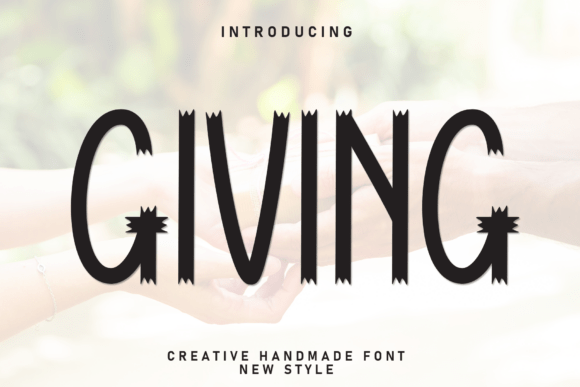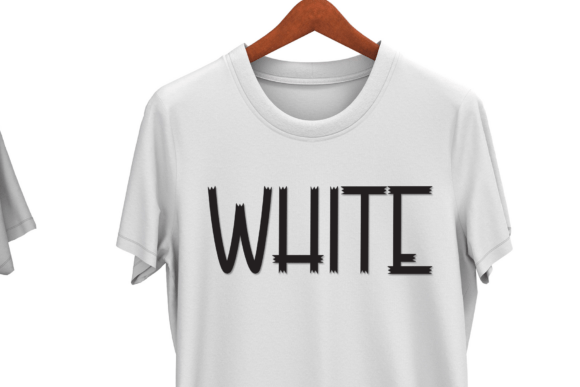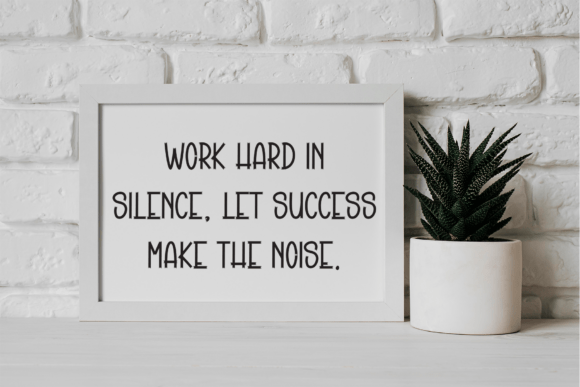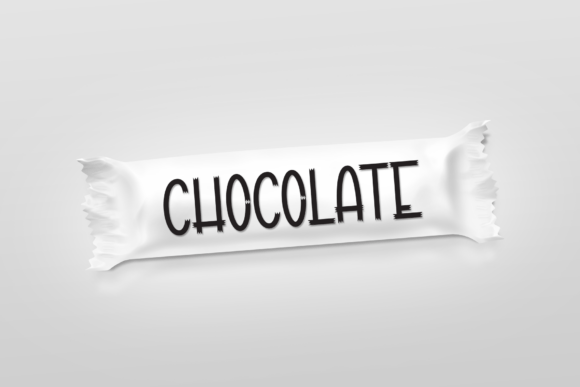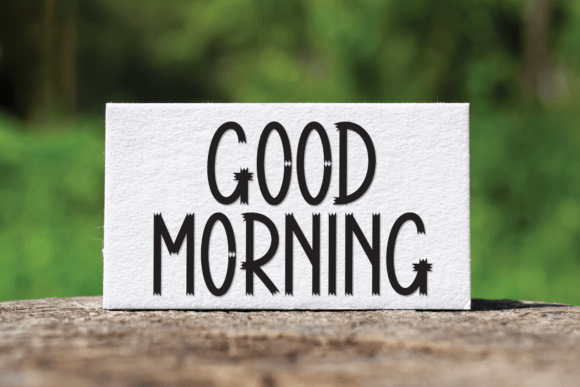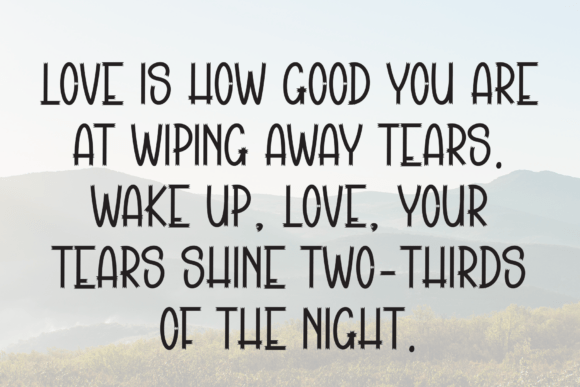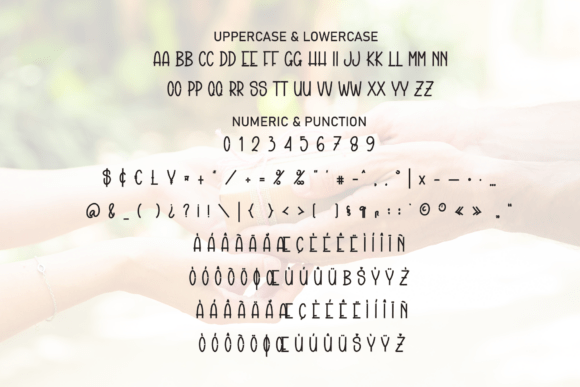
The Magic of Handwoven Typography: Unveiling Giving Font
Have you ever sat down at your desk, staring blankly at a blank canvas, searching for the perfect font to bring your design to life? The struggle is real, but what if I told you there’s a font that’s been carefully crafted to captivate and inspire? Enter the enchanting world of Giving Font, a meticulously handwoven display font that radiates warmth and charm.
Created to add a touch of elegance and romance to any design, Giving Font is a valuable asset for designers looking to elevate their work. Whether it’s a wedding invitation, a greeting card, or a creative project, this font is sure to leave a lasting impression. Its unique charm and individuality make it a standout in the world of typography, and its premium quality ensures that it will remain a timeless favorite among designers.
Giving Font Key Features
- Font Family: Giving Font is a sans-serif font family designed for readability and versatility. It comes in multiple weights and styles.
- Language Support: Giving Font supports a wide range of languages, including Latin, Cyrillic, and Greek scripts, making it suitable for global applications.
- Unique Characteristics: The font features a clean, modern design with subtle rounded edges and a high x-height, making it easy to read in both print and digital formats.
Design Review: Giving Font
I recently had the chance to work with the Giving Font, and I’m excited to share my honest review.
- Unique and elegant design: The Giving Font has a beautiful, modern aesthetic that catches the eye. It’s perfect for creating visually appealing headlines and titles.
- High-quality typography: The font is well-crafted, with crisp lines and smooth curves. It’s a joy to work with, even at smaller font sizes.
- Good versatility: The Giving Font is suitable for a wide range of applications, from logos and branding to web design and print materials.
- Limited language support: Unfortunately, the Giving Font only includes support for a few languages, which may limit its usability for multilingual projects.
- No bold or italic variations: While the font is lovely in its standard form, it would be great to have bold and italic variations to add more depth and contrast.
The Giving Font is a beautiful, high-quality font that shines in its elegant design and versatility. While it has some limitations, it’s still a great choice for designers looking for a unique and sophisticated typography solution.
Tips for Getting the Most Out of Giving Font
Use Giving Font to add a touch of elegance and sophistication to your designs. This font is particularly effective for headings and titles, but can also be used for body text to create a cohesive look.
Giving Font is ideal for:
Business cards and letterheads
Wedding websites and event branding
Any design project where a elegant and sophisticated look is desired